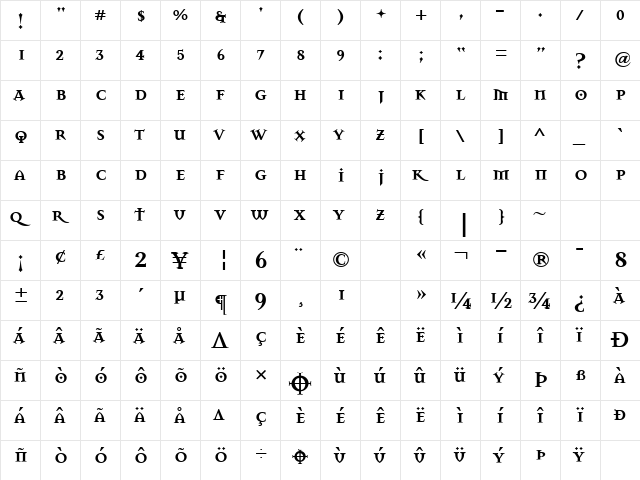
MasonSerifSuperBold Regular
Design Context for MasonSerifSuperBold Typeface
MasonSerifSuperBold carries the refined structure of traditional serif typography, with bracketed terminals and considered proportions that communicate credibility and craft. The heavy weight commands attention and anchors typographic hierarchies.